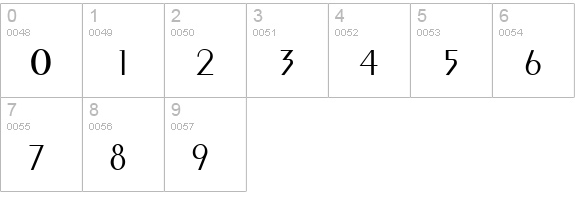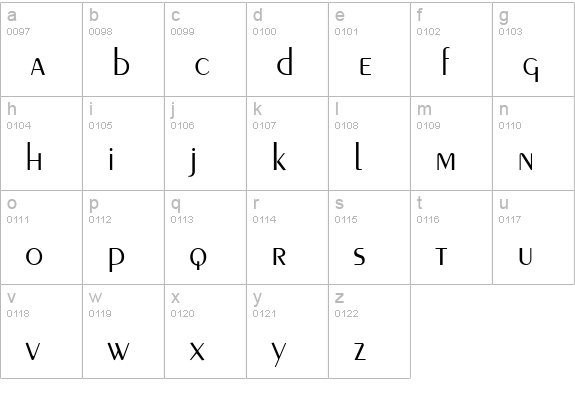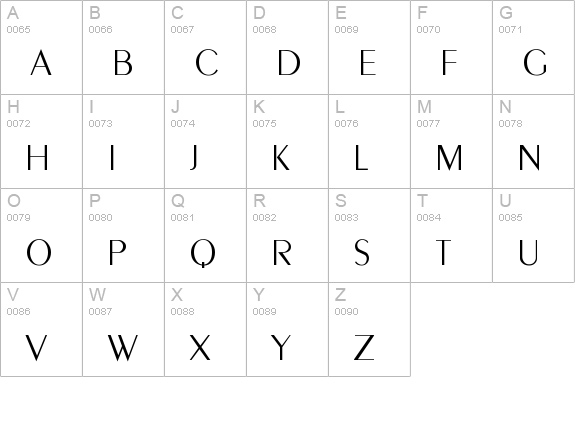
PenyaeLight Regular Font Details
PenyaeLight Regular is the standard, neutral variant in the PenyaeLight typeface family \xE2\x80\x94 well suited to general body text, paragraphs, and standard typographic work.
PenyaeLight Regular is a stunning font that combines elegance and simplicity to create a visually captivating typographic experience. This font is perfect for a wide range of design projects, from sophisticated branding to modern editorial layouts. With its clean lines and smooth curves, PenyaeLight Regular exudes a sense of modernity and professionalism. It is a versatile typeface that can be used for both headlines and body text, ensuring a cohesive and polished look throughout your designs. What sets PenyaeLight Regular apart is that it is not only a visually appealing font, but it is also free to download. Yes, you read that right – this remarkable font is freely available at FontsMarket.com. Now you can enhance your designs with this high-quality typeface without breaking the bank. Whether you are a seasoned designer or a beginner, PenyaeLight Regular is incredibly easy to work with. Its legibility and balanced proportions make it a pleasure to read, while its elegant and modern aesthetic adds a touch of sophistication to any project. In addition to its visual appeal and accessibility, PenyaeLight Regular also boasts an extensive character set that includes accented letters, punctuation marks, and symbols. This ensures that you have everything you need to create stunning designs in multiple languages and styles. So, why wait? Elevate your designs with PenyaeLight Regular – a free font that combines elegance, simplicity, and accessibility. Download it today at FontsMarket.com and let your creativity soar.